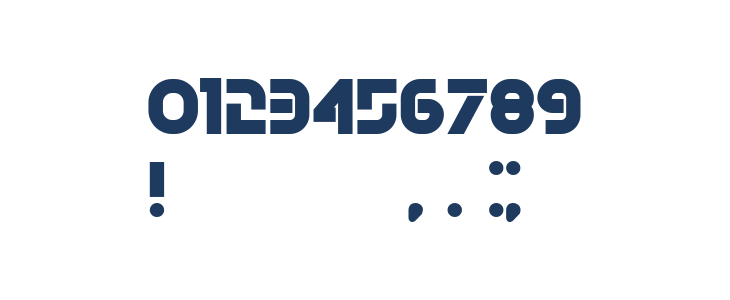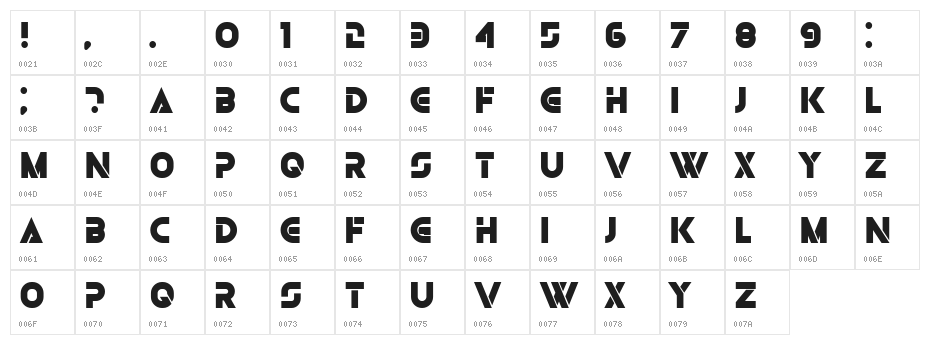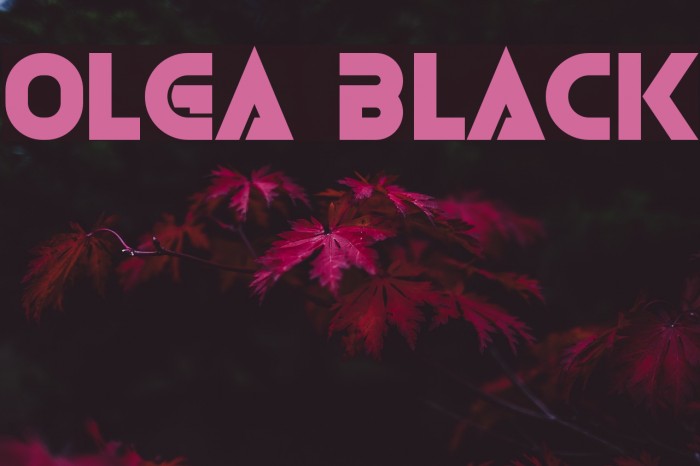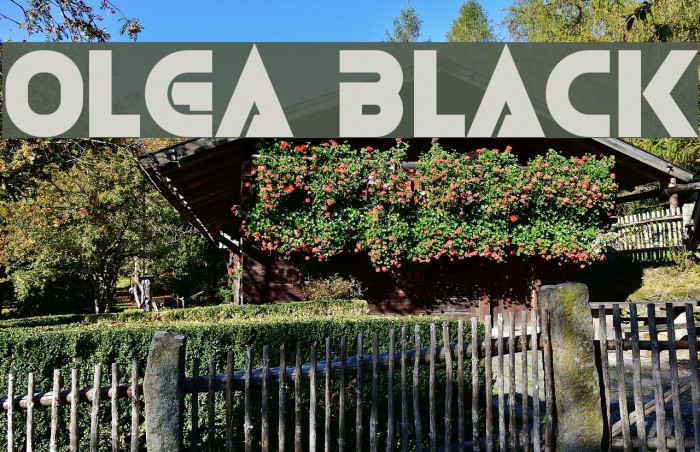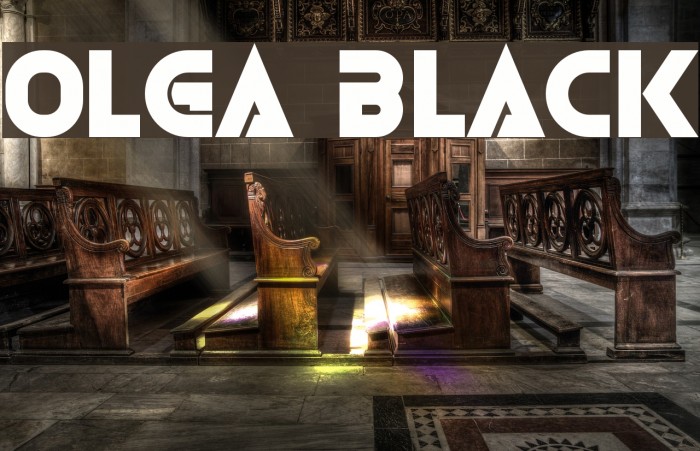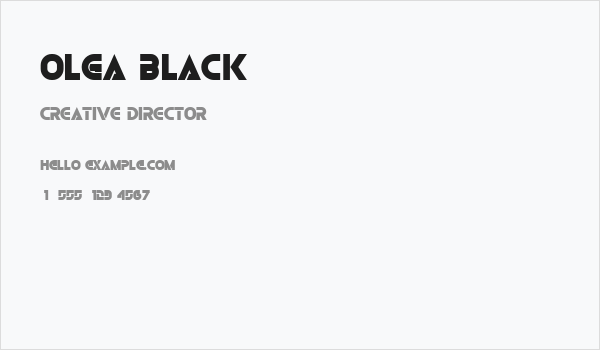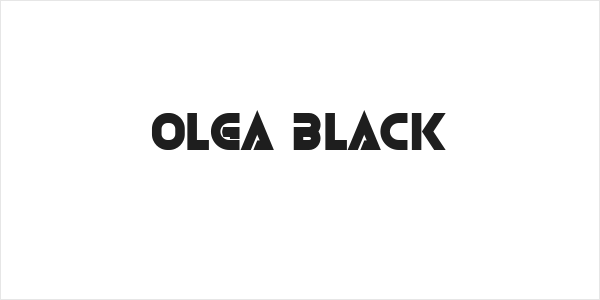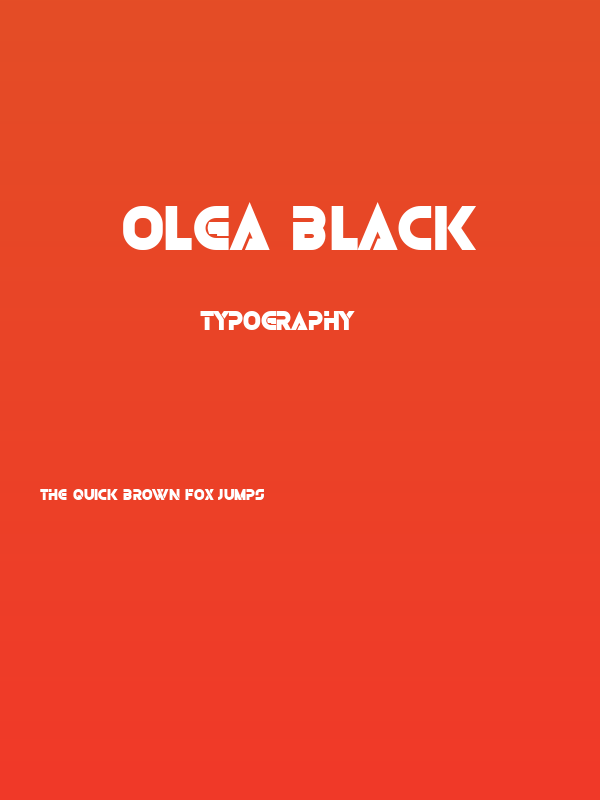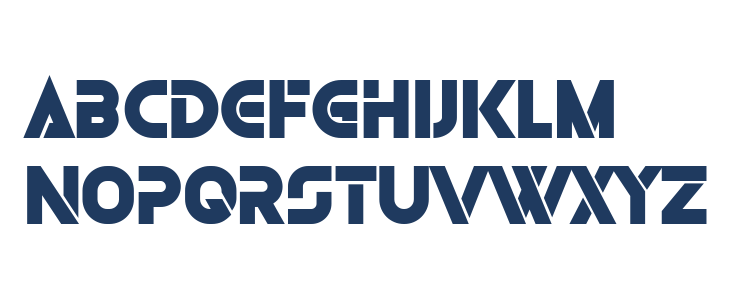
Olga Black Font
Olga Black Description
This bold, geometric font features a striking and modern design with strong, angular lines and a futuristic aesthetic. The characters are crafted with a unique blend of sharp edges and rounded elements, creating a dynamic and eye-catching appearance. The uppercase letters are particularly bold, with a distinct architectural feel, while the numbers and special characters maintain the same robust style. The font's design is consistent throughout, with a focus on symmetry and balance, making it ideal for projects that require a strong visual impact.
| Proposed Projects | Ideal for branding, posters, headlines, and any project that requires a bold, modern aesthetic. |